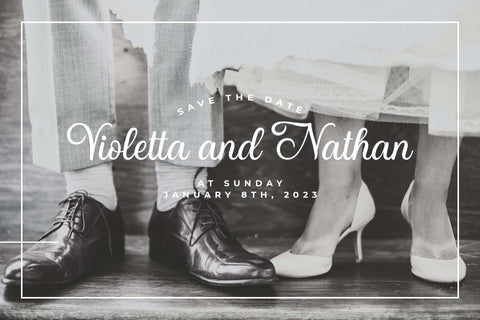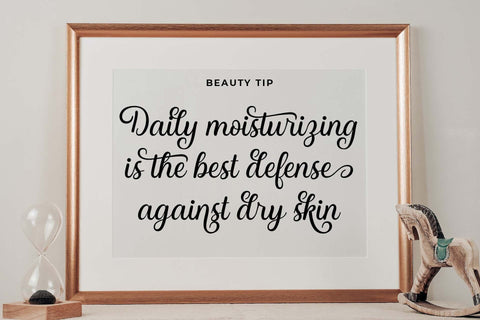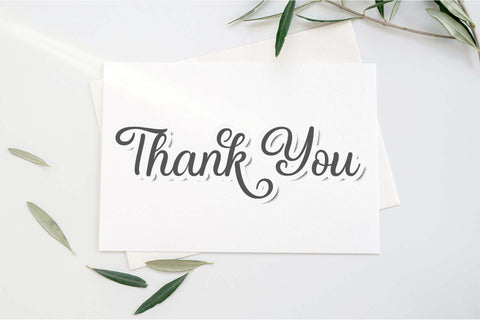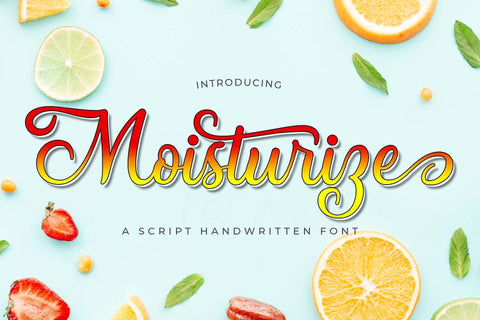
Moisturize Script Font with Alternative Characters and Swirls
Moisturize is a delicate, elegant, and flowing handwritten font perfect for your favorite projects. Fall in love with its incredibly distinct and timeless style, and use it to create spectacular designs!